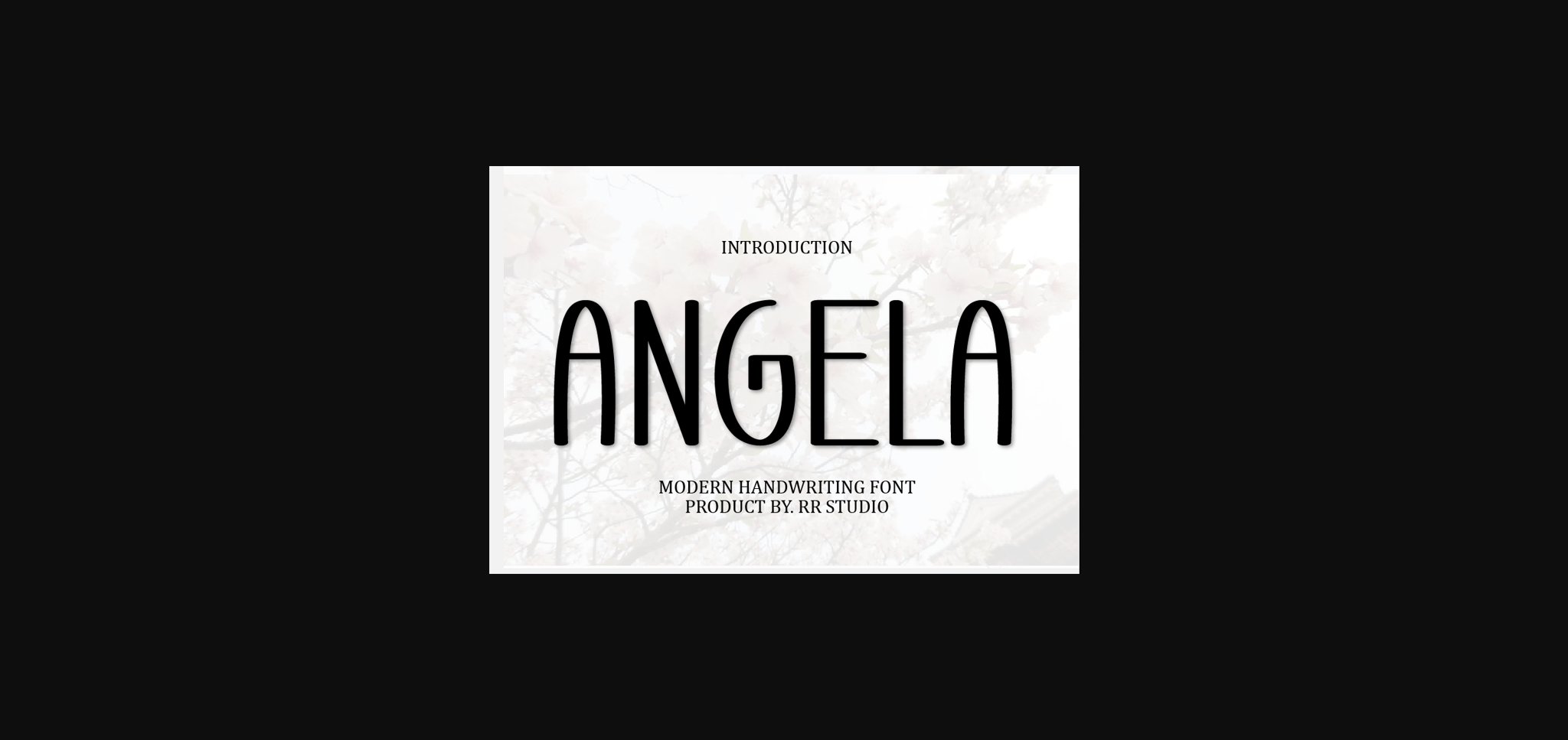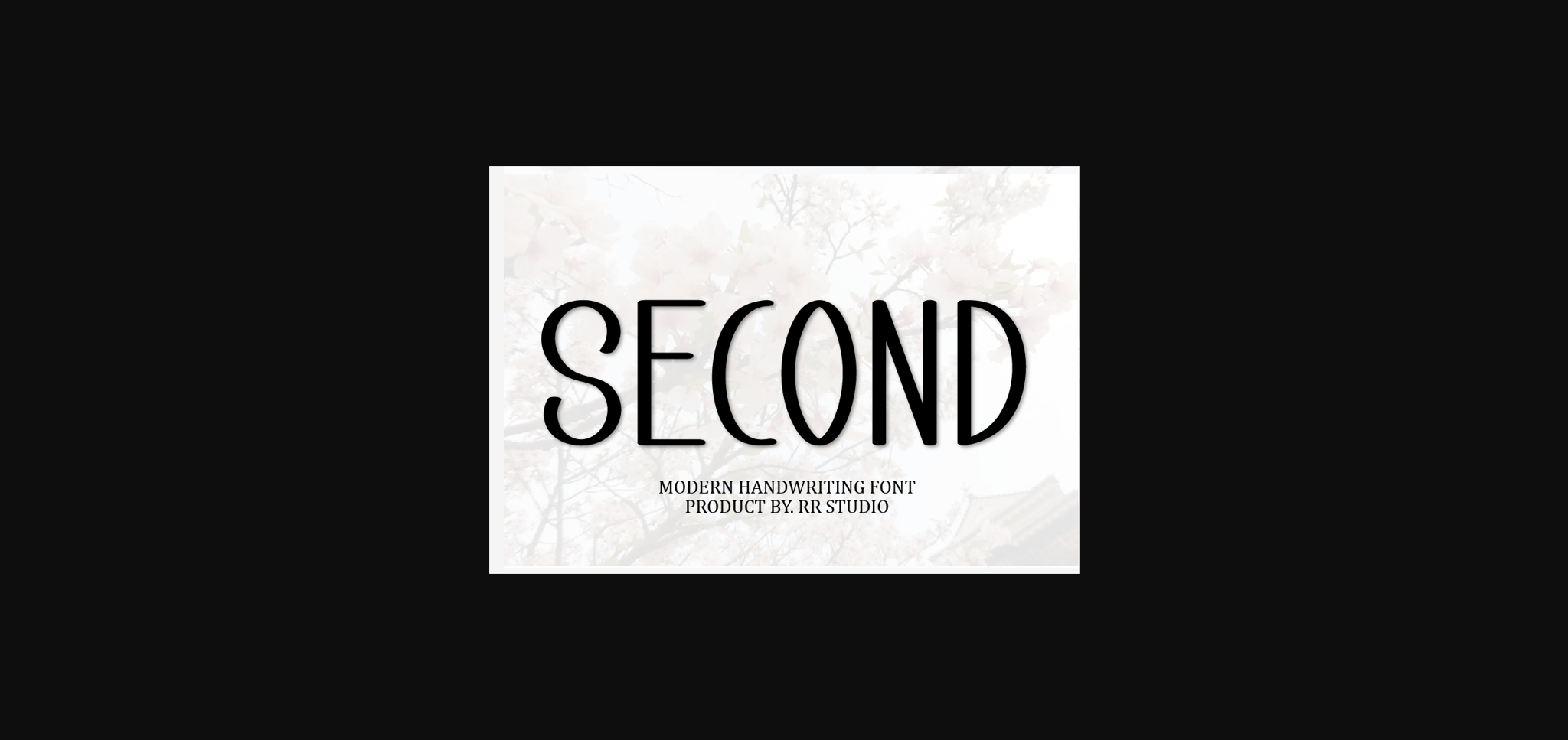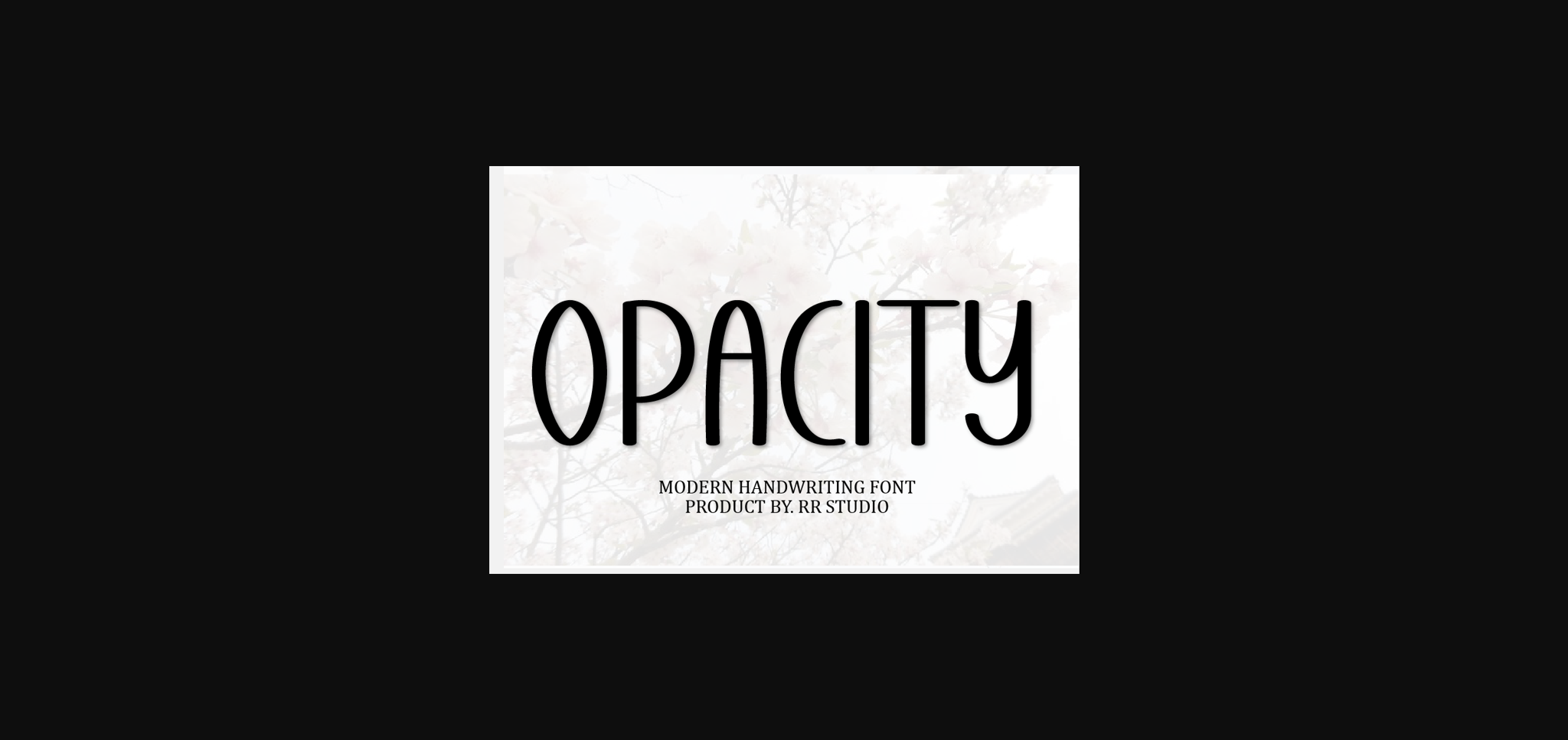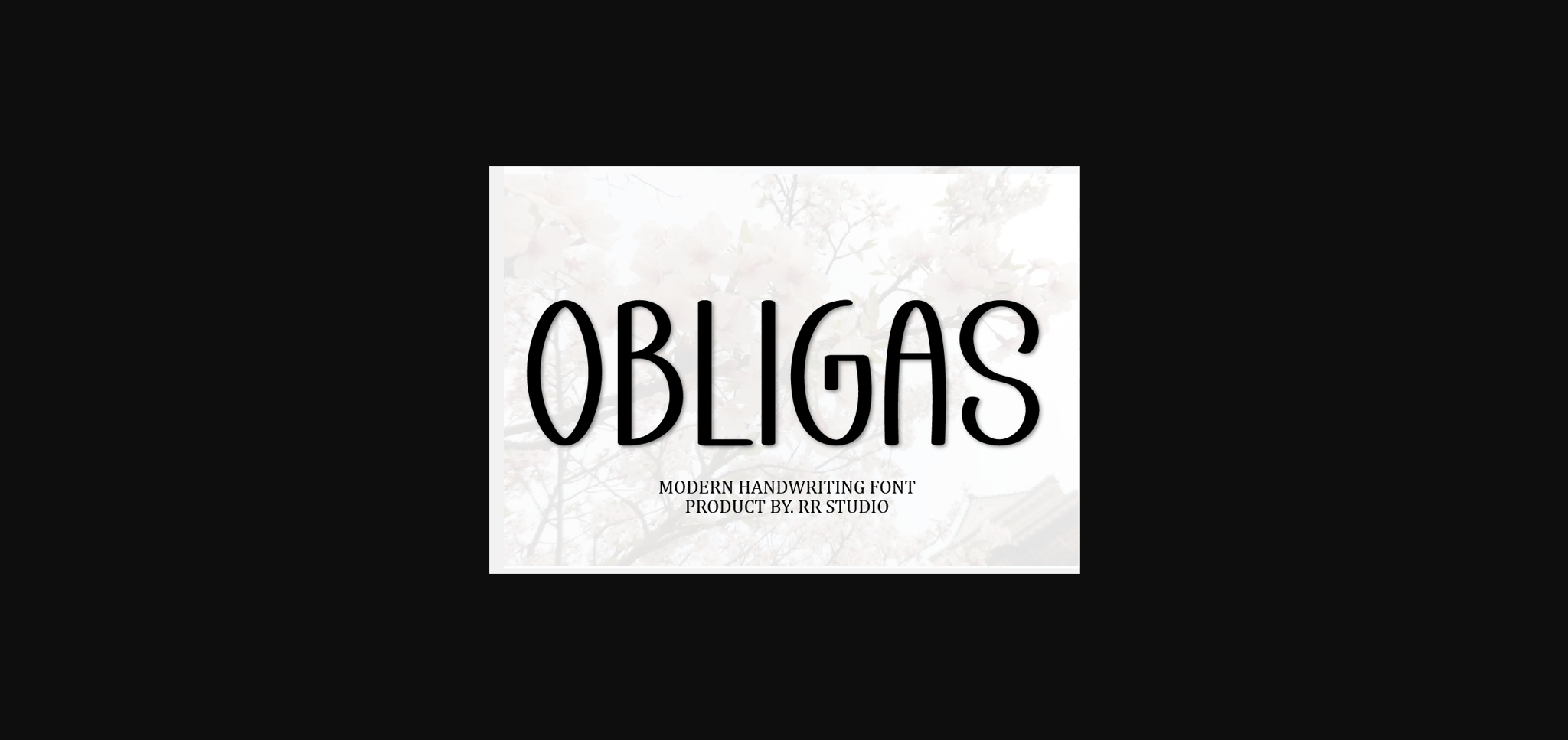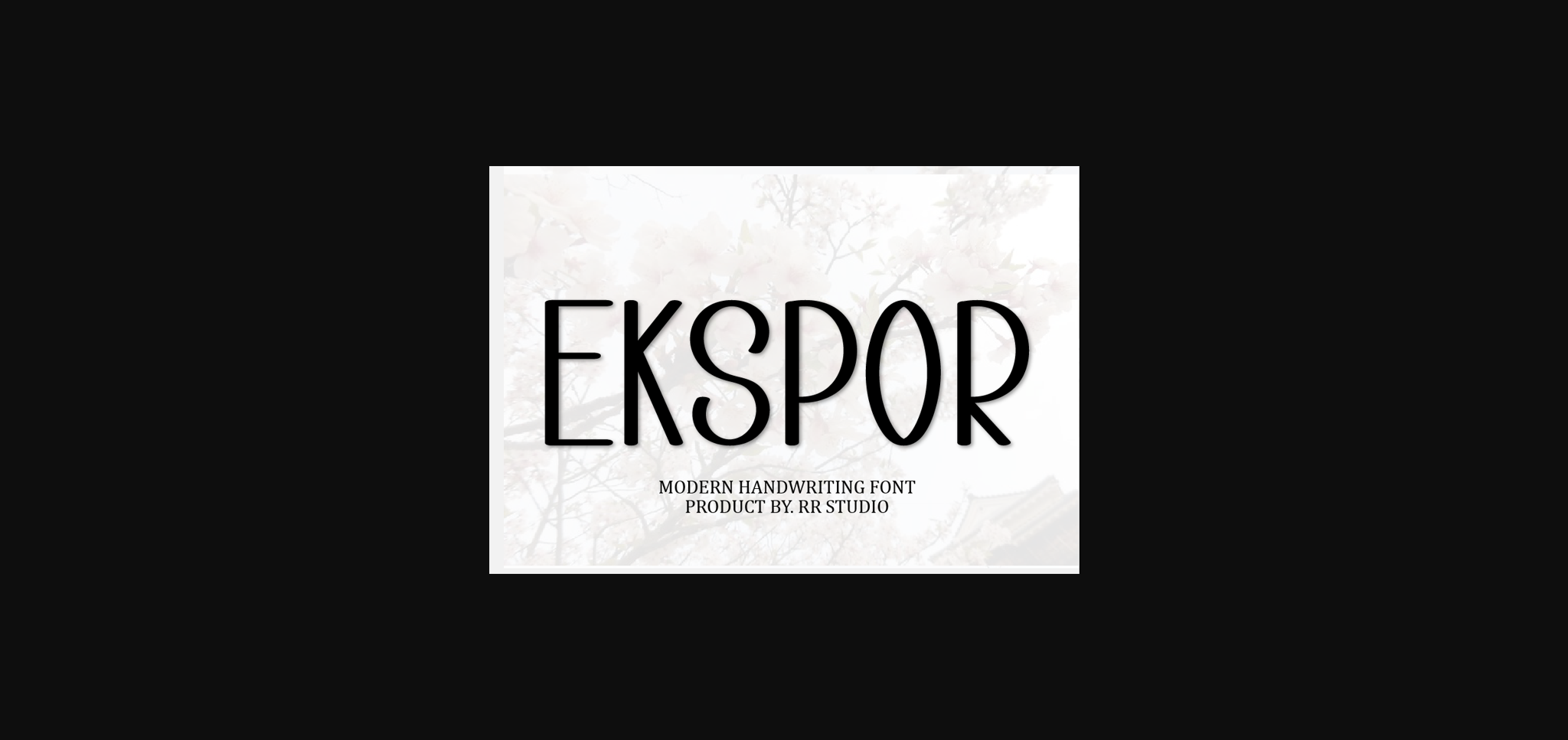
Angela Font
About Angela Font
Angela is a sweet and friendly sans-serif font. Cute yet versatile, this font is ideal for writing wedding invitations, cards, or any other design that might need a fresh touch!